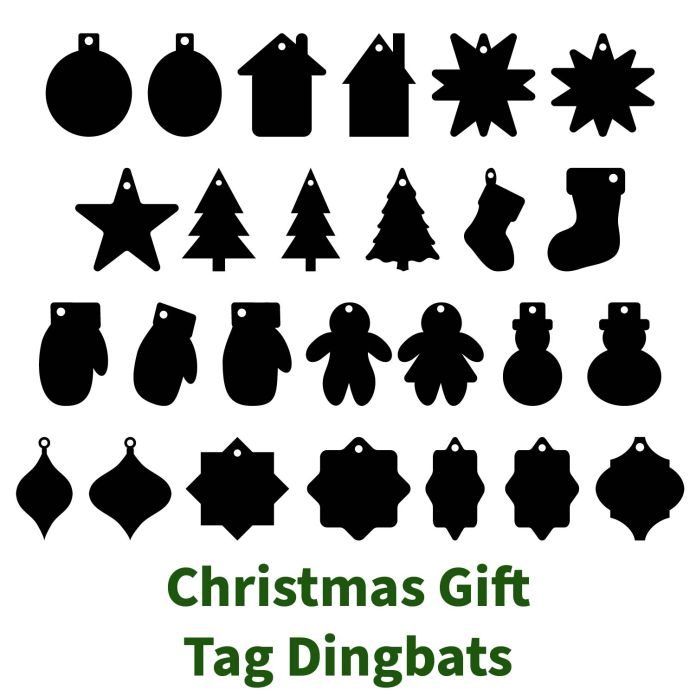
HNC Christmas Gift Tag Dingbat Fonts
Christmas Gift Tag Dingbat Font gives you 26 different gift tags to use in all your holiday Christmas crafts. OTF file